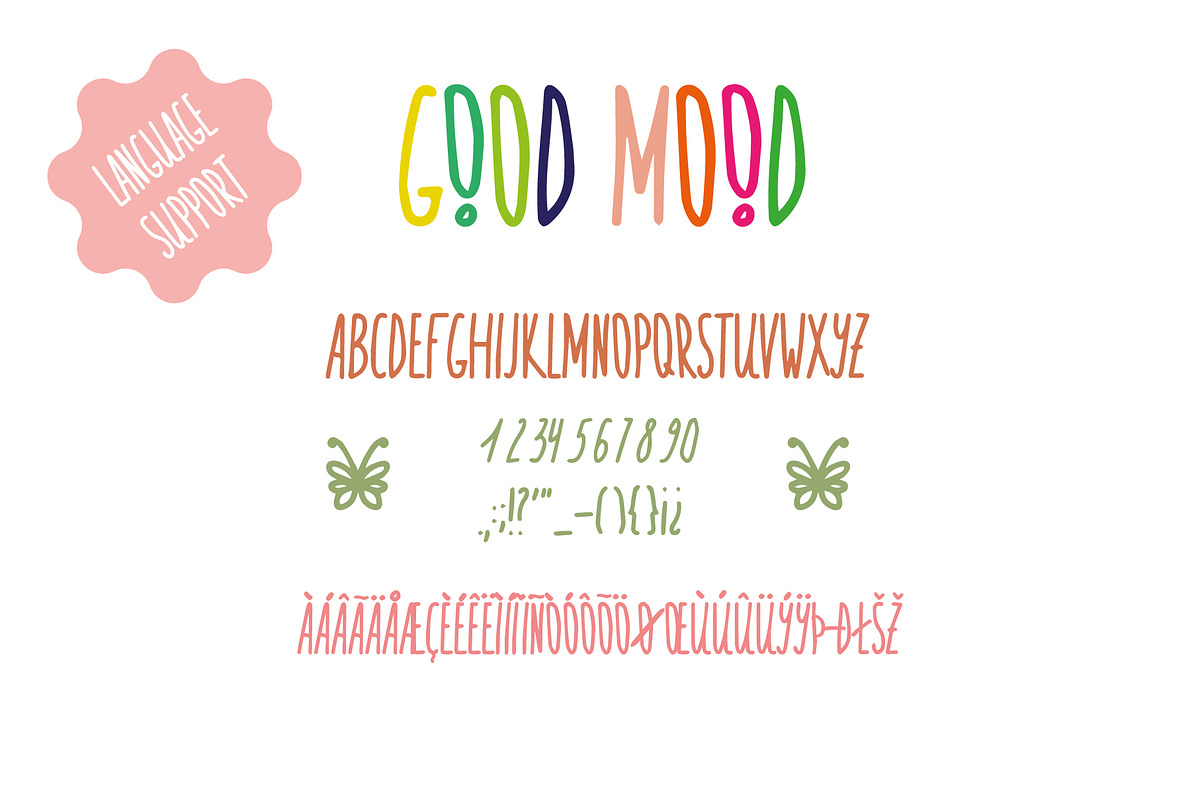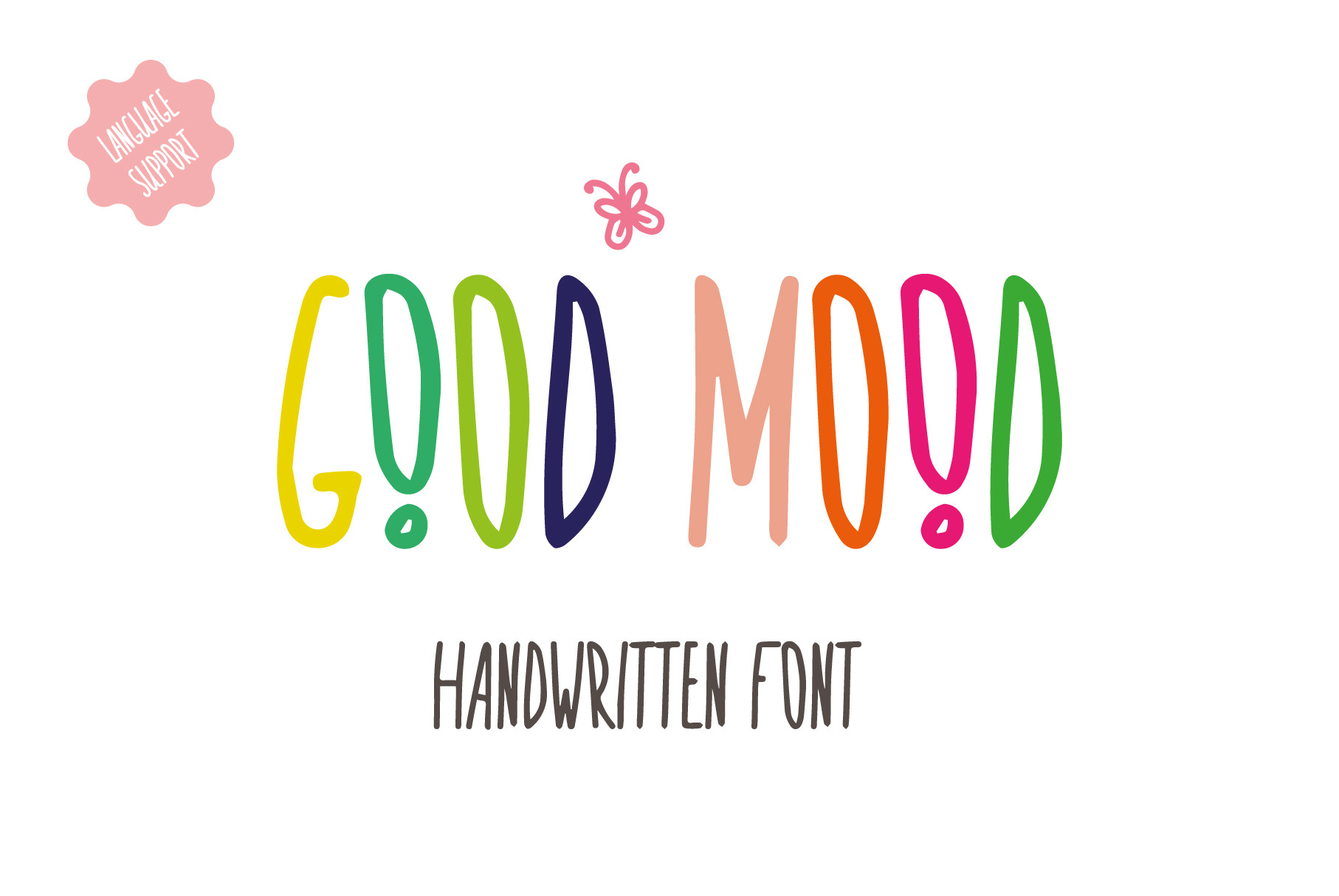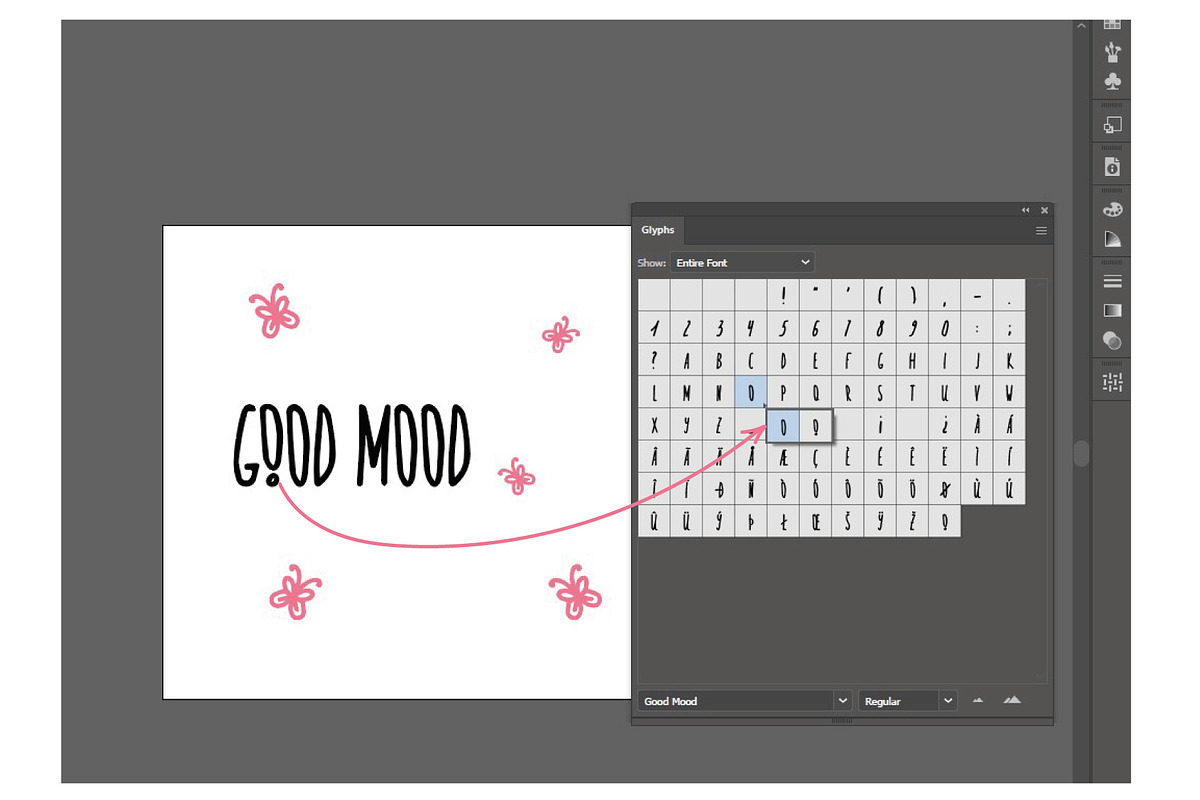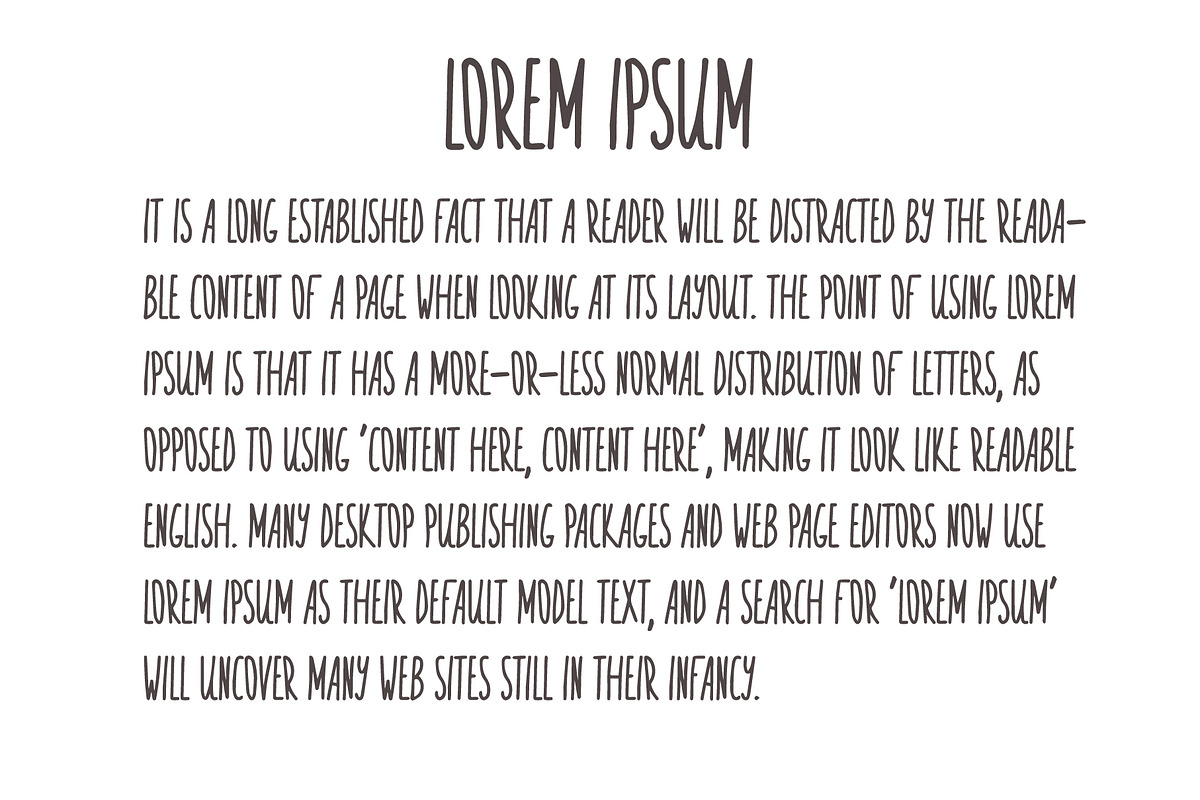
GOOD MOOD handwritten font
GOOD MOOD Font
Good Mood Font a super universal and useful hand-lettered font.
It is perfect for:
- flyer
- greeting cards
- packaging
- children cover book
- quotes
- logo
- cloth etc.